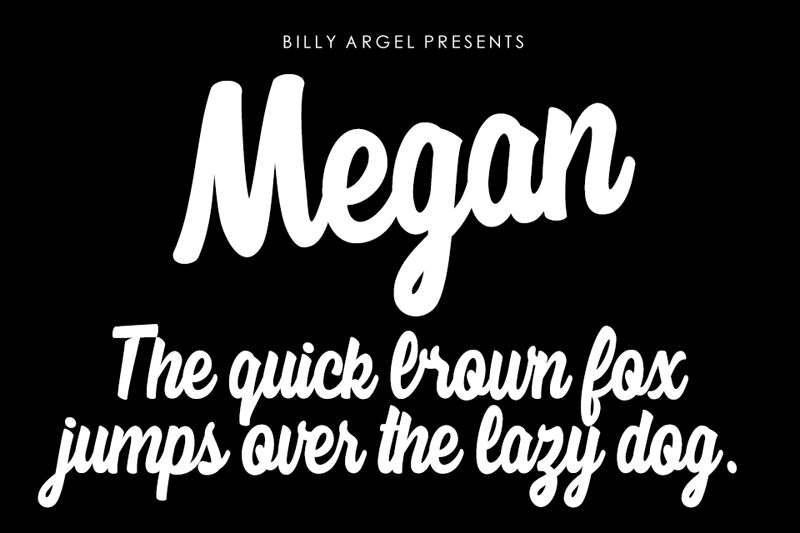
Megan, a captivating font designed by Billy Argel, exudes a smooth, brush-like elegance. Its fluid strokes and organic curves evoke a sense of effortless sophistication, making it a remarkable choice for branding, editorial, and personal projects. Megan's distinctive character shapes and seamless flow create a visually striking and memorable typographic experience.
This versatile font lends itself well to a variety of design applications, from eye-catching headlines and impactful logos to emotive display text and captivating editorial layouts. Megan's versatility and distinctive style make it a versatile choice for designers seeking to infuse their projects with a touch of refined artistry.